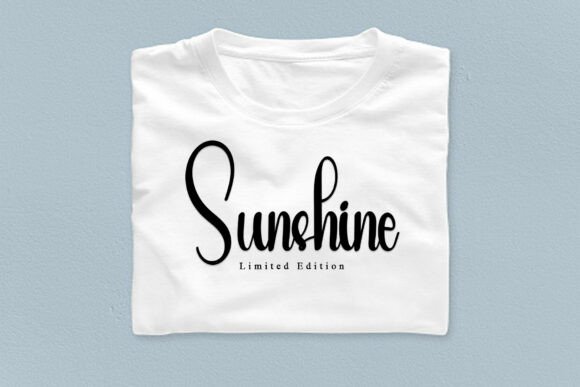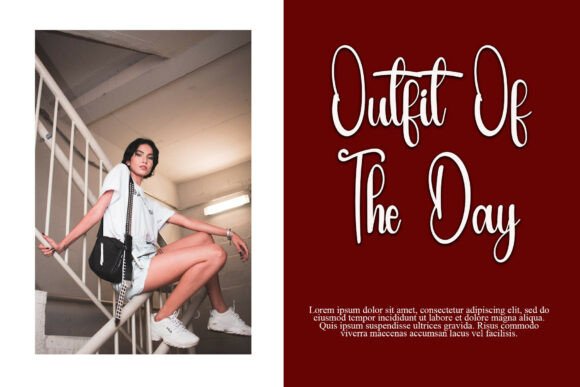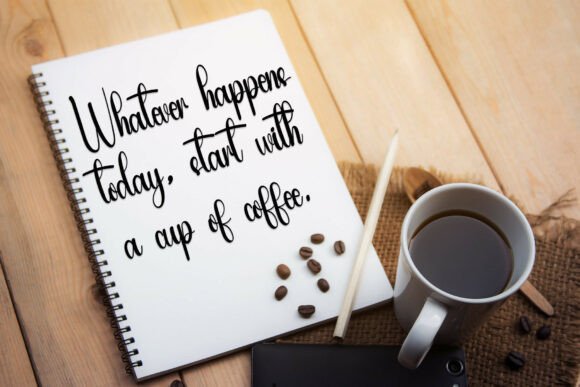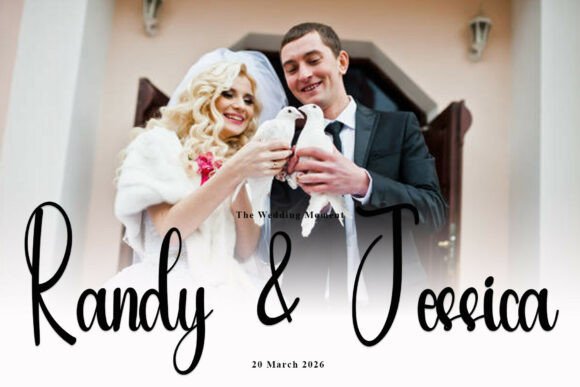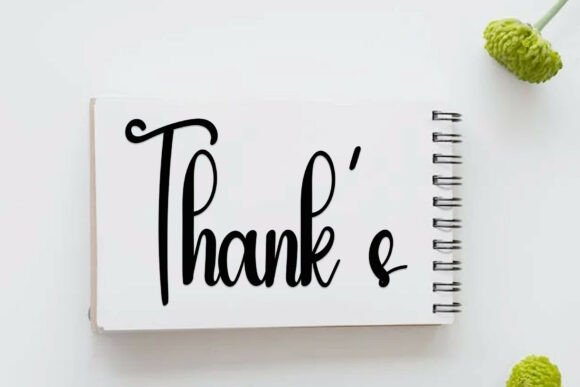
Bulgaria Font: Adding a Touch of Holiday Magic to Your Designs
The holiday season is upon us, and with it comes the need for designers and crafters to create festive and merry designs that capture the spirit of the season. If you’re looking for a typeface that embodies the whimsy and enchantment of the holidays, look no further than the Bulgaria Font. This decorative font is perfect for adding a touch of magic to your designs, and in this article, we’ll explore its features and uses.
What is Bulgaria Font?
Bulgaria Font is a festive and merry typeface designed to capture the essence of the holiday season. Its decorative elements and whimsical flair make it an ideal choice for designers and crafters looking to add a touch of enchantment to their work. With its unique and eye-catching design, Bulgaria Font is sure to make your designs stand out from the crowd.
Features of Bulgaria Font
Bulgaria Font comes with a range of features that make it perfect for holiday-themed projects. Some of its key features include:
- Decorative elements: Bulgaria Font features intricate decorative elements that add a touch of whimsy and festivity to your designs.
- Whimsical flair: The font’s whimsical design makes it perfect for creating holiday-themed projects that are fun and playful.
Uses of Bulgaria Font
Bulgaria Font is perfect for a range of holiday-themed projects, including:
- Greeting cards: Add a touch of festivity to your holiday greeting cards with Bulgaria Font.
- Gift tags: Create beautiful and unique gift tags with Bulgaria Font.
- Holiday-themed projects: Use Bulgaria Font to create festive and merry holiday-themed projects, such as posters, flyers, and social media graphics.
Benefits of Using Bulgaria Font
There are many benefits to using Bulgaria Font in your designs, including:
- Unique and eye-catching design: Bulgaria Font’s unique design makes it sure to grab attention and add a touch of festivity to your designs.
- Versatile: Bulgaria Font can be used for a range of holiday-themed projects, from greeting cards to social media graphics.
Tips for Using Bulgaria Font
Here are some tips for getting the most out of Bulgaria Font:
- Experiment with different colors: Bulgaria Font looks great in a range of colors, so don’t be afraid to experiment and find the perfect hue for your design.
- Pair with other festive fonts: Pair Bulgaria Font with other festive fonts to create a unique and eye-catching design.
- Use for headlines and titles: Bulgaria Font is perfect for headlines and titles, where its decorative elements and whimsical flair can really shine.
Bulgaria Font is a festive and merry typeface that’s perfect for adding a touch of holiday magic to your designs. With its decorative elements, whimsical flair, and PUA coding, it’s an ideal choice for designers and crafters looking to create unique and eye-catching holiday-themed projects. Whether you’re creating greeting cards, gift tags, or social media graphics, Bulgaria Font is sure to bring a cheerful and nostalgic ambiance to your words. So why not give it a try and let your typography shine with the magic of Bulgaria Font?